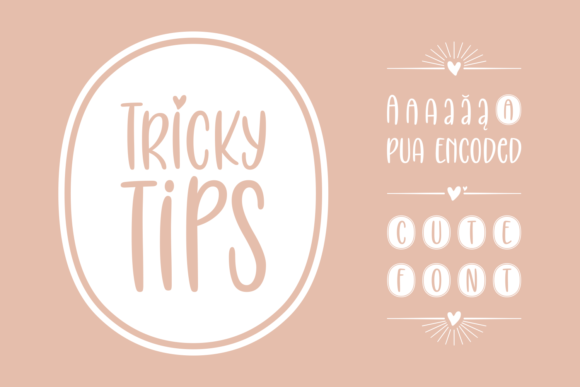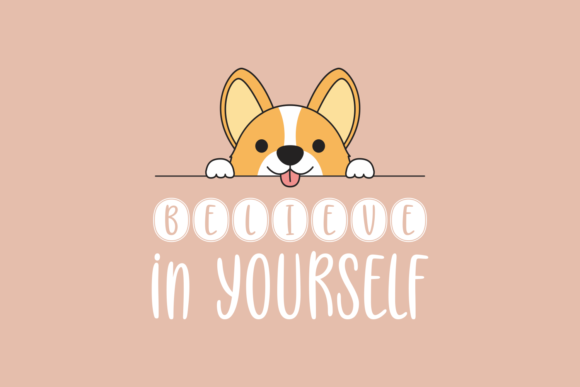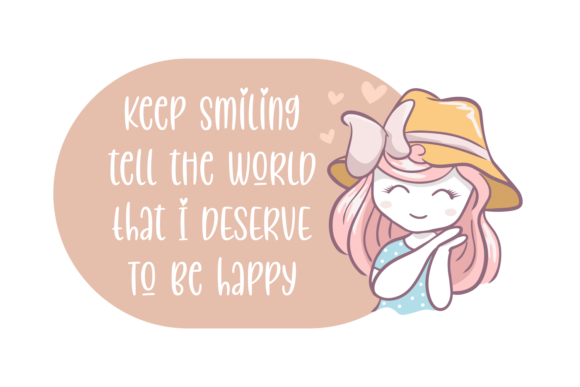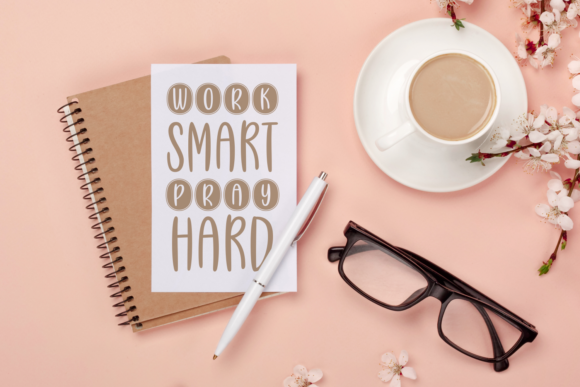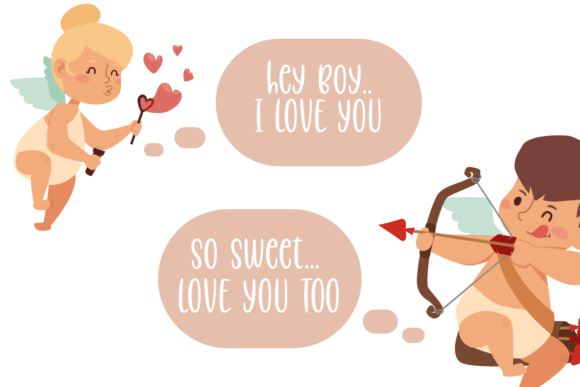
Tricky Tips Font
About Tricky Tips Font
Tricky Tips is a cute and adorable handwritten font with a unique feel. Use it to add a whimsical charm to any crafty idea!